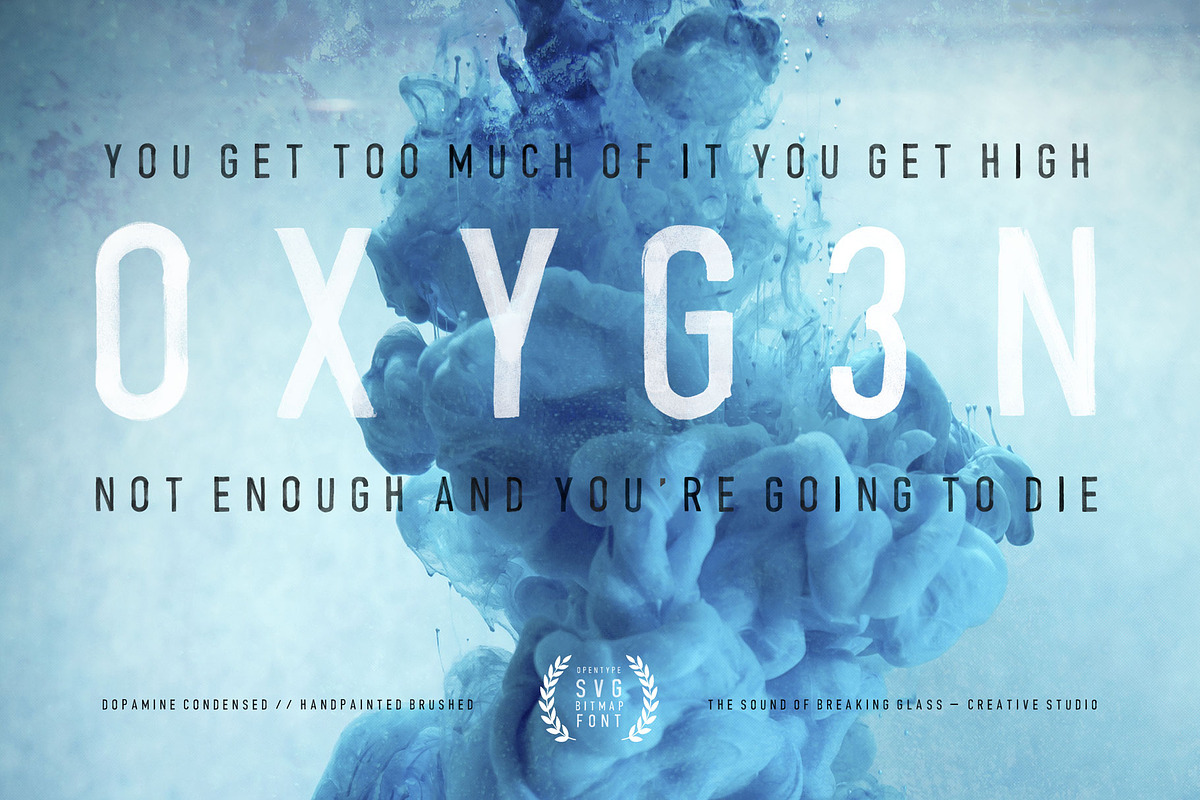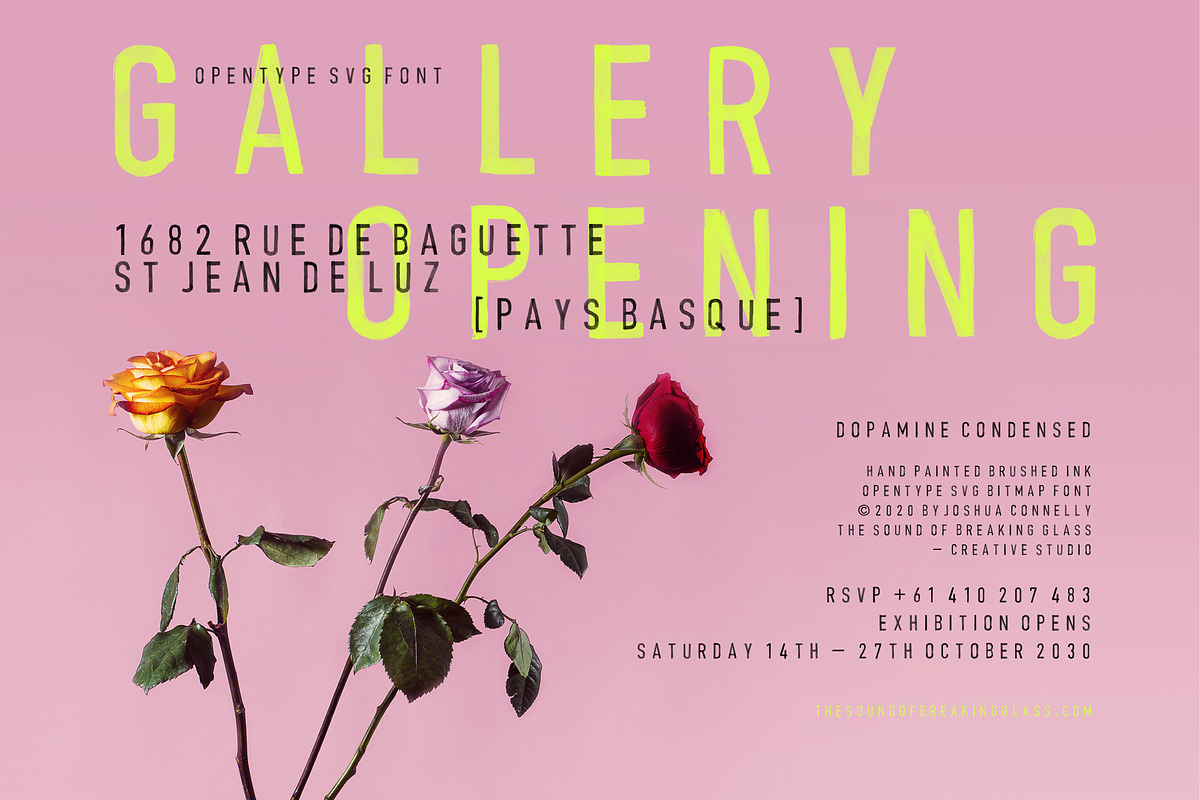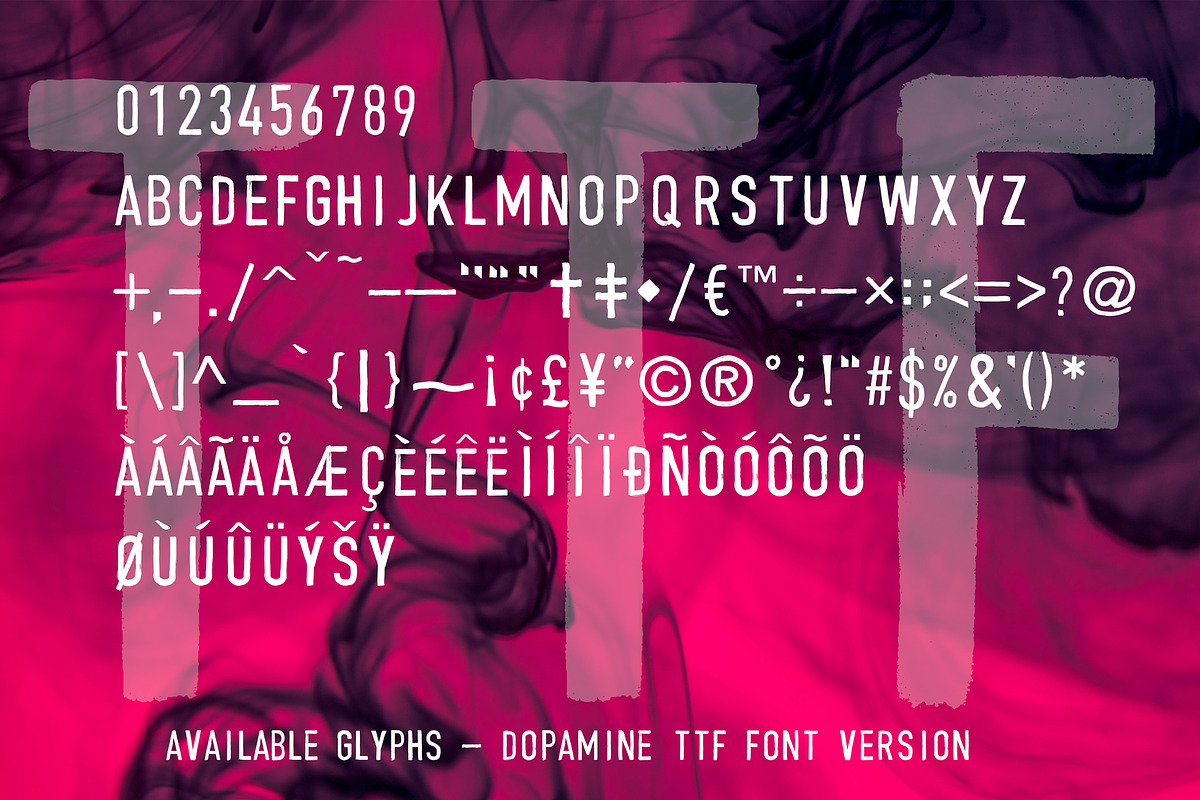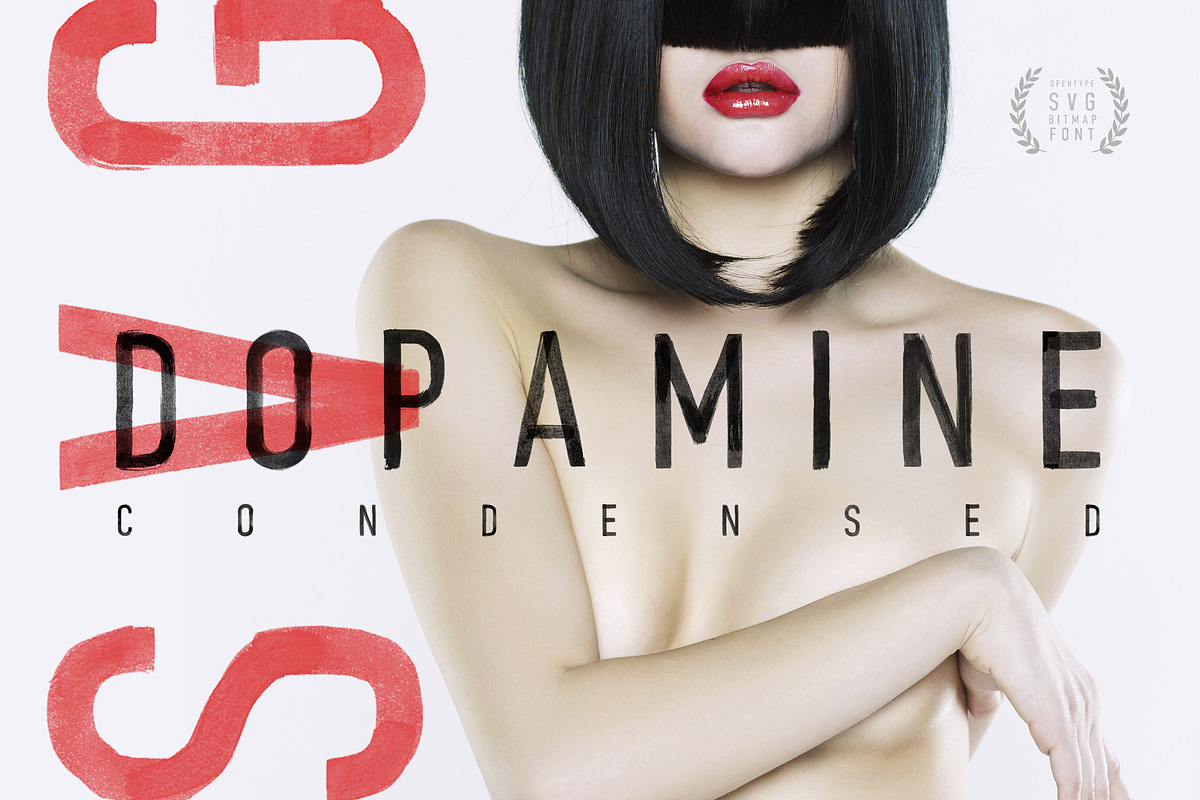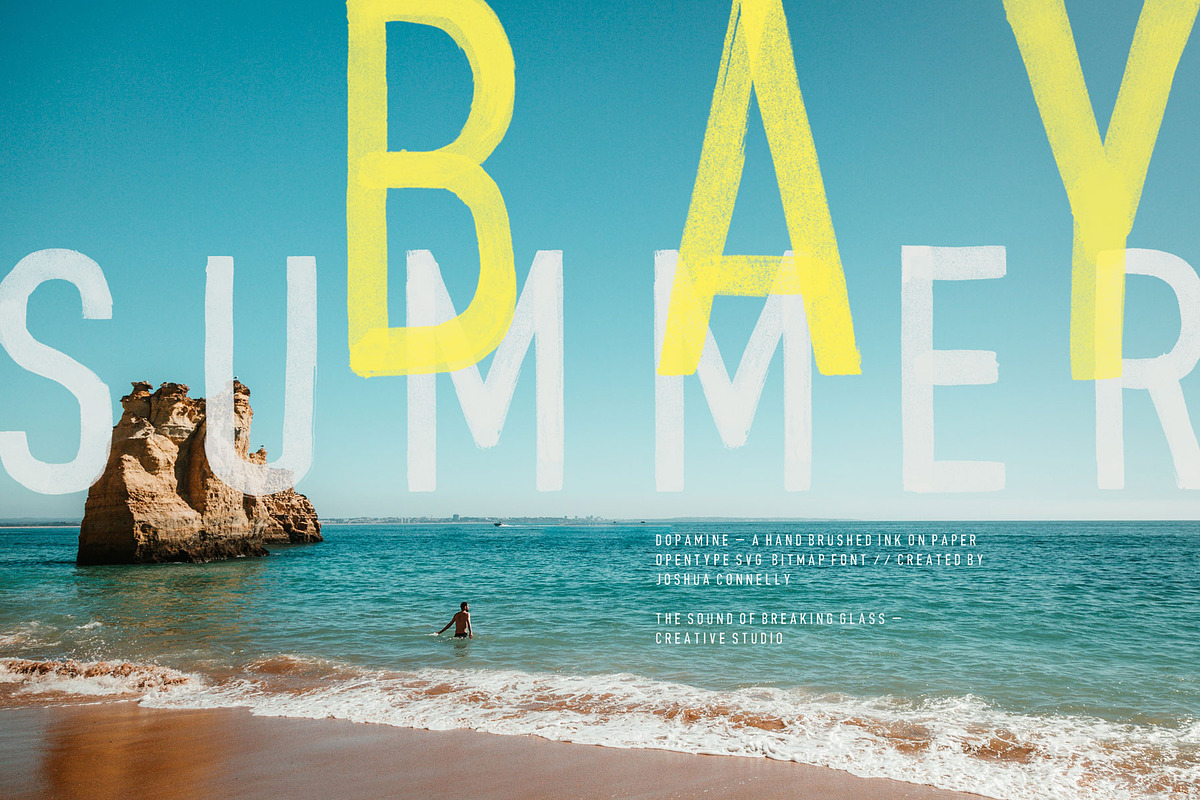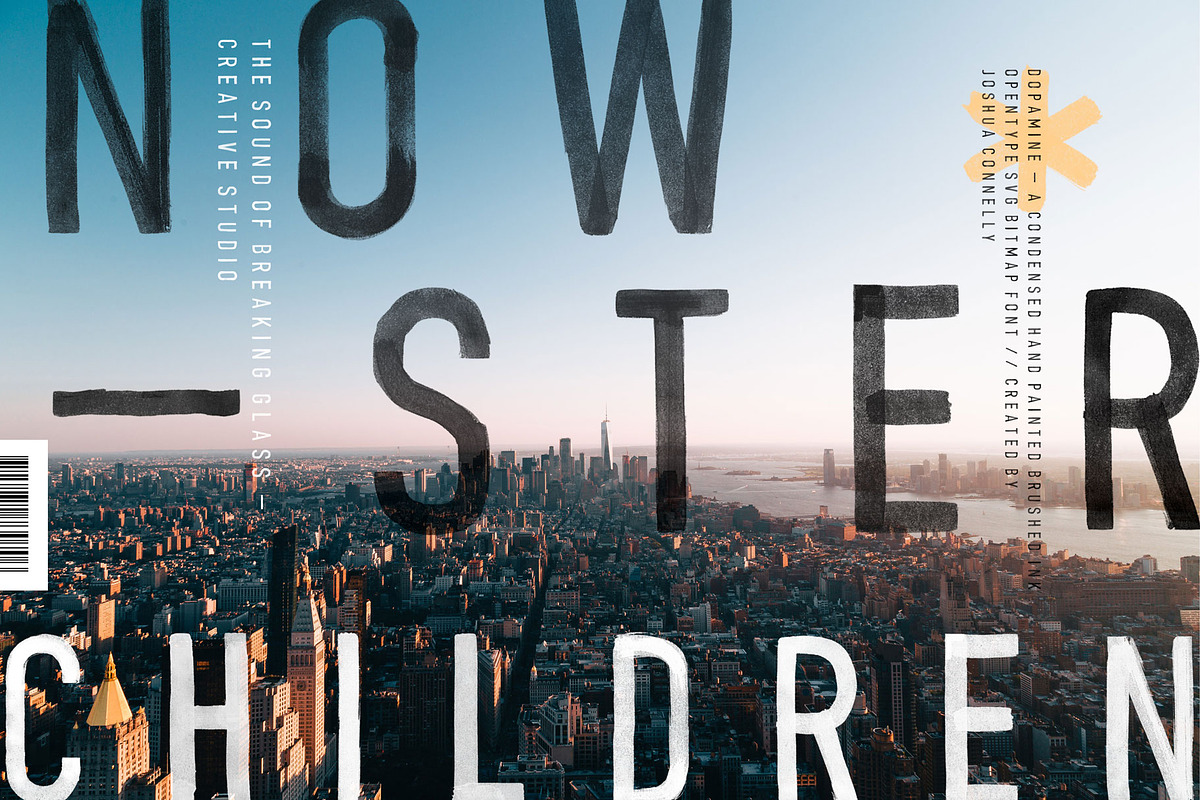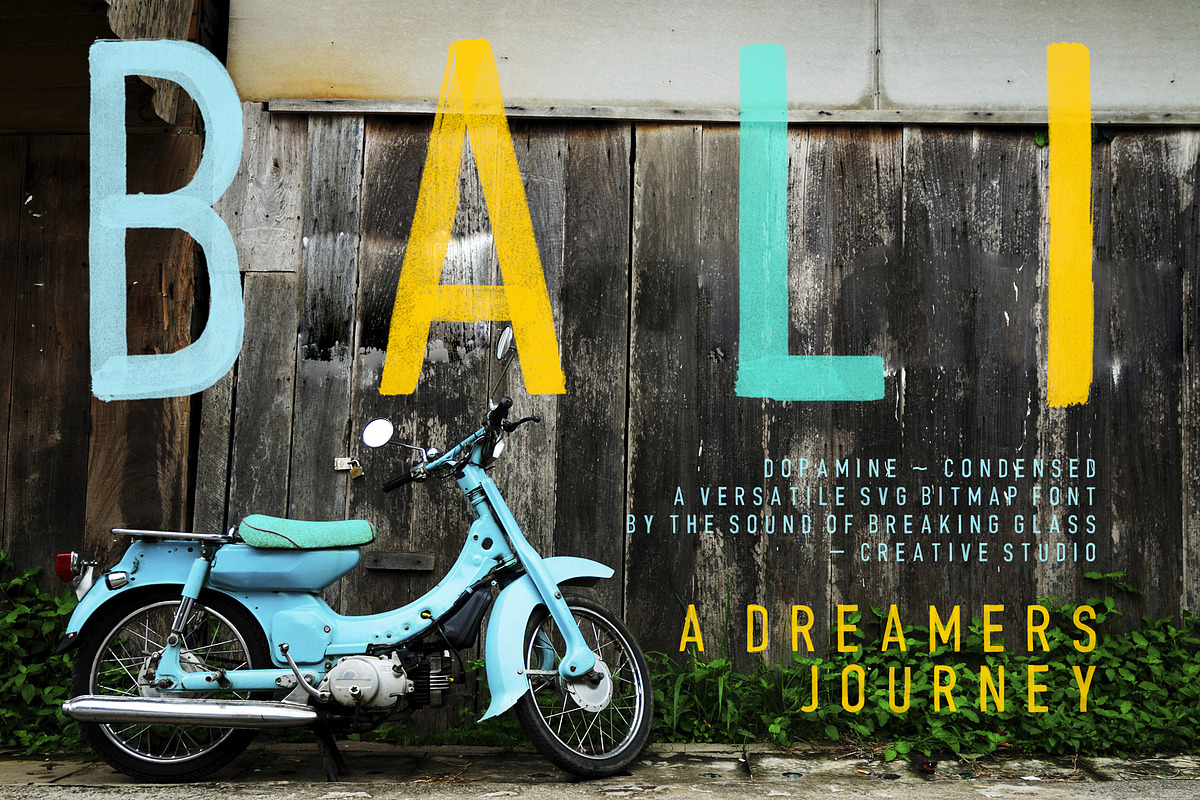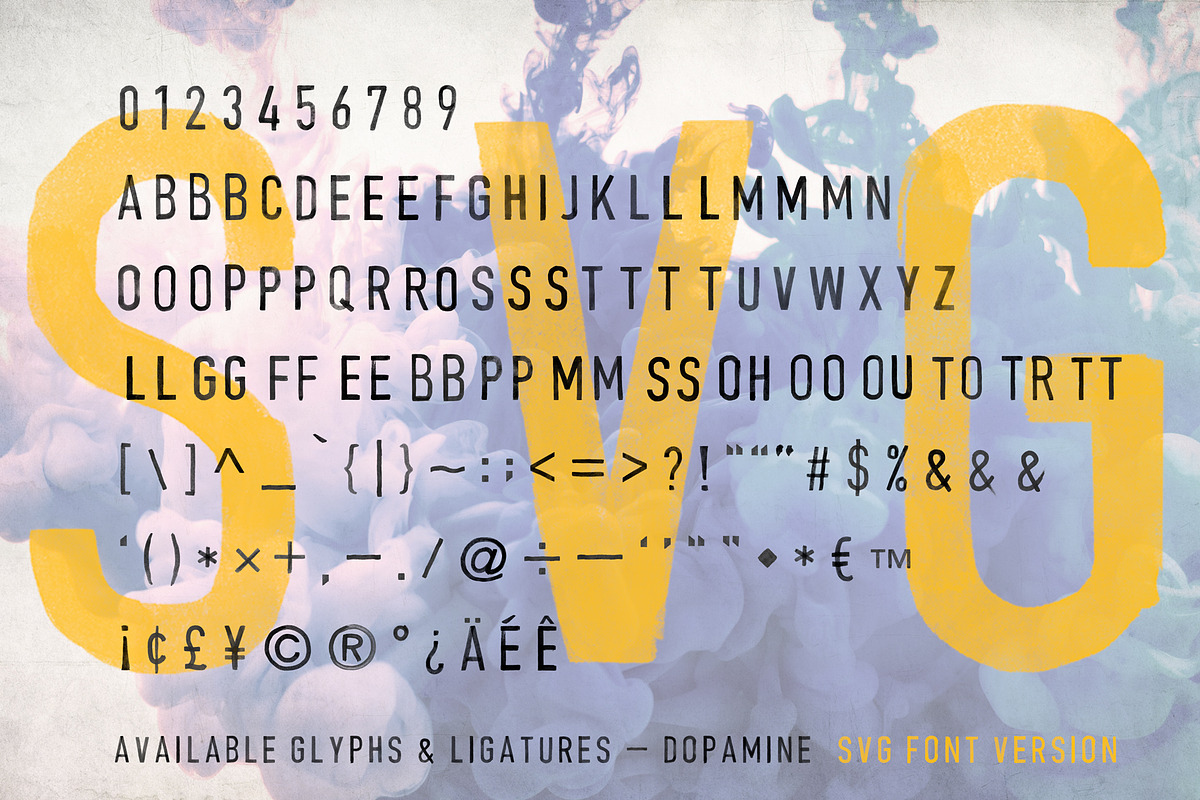
Dopamine SVG | Hand Brushed Font
DOPAMINE by The Sound Of Breaking Glass - Creative Studio, is a charismatic hand brushed - ink on paper SVG bitmap font that is adaptable to suit a wide range of design styles and creative applications.
Dopamine-SVG-Bitmap.otf was created using the latest Opentype-SVG font technology - Which maintains the brushed strokes, blemishes and ink transparency as seen in the original hand drawn artwork.
Dopamine-SVG-Bitmap.otf– An openType SVG Bitmap version of the font with unique and varied textural blemishes and visible brush strokes in every character & glyph.
Dopamine-TTF-Vector.ttf– Standard TTF vector version of the font where all glyphs are a solid texture fill. While this version is infinitely scalable it still maintains the original hand brushed ink on paper look and can be colorised any color using a standard text color fill.
NOTE ABOUT LIGATURES:
ONLY the Dopamine-SVG-Bitmap.otf version contains various paired 'Discretionary Ligatures' built in to the font. These letter pairs maintain an authentic, natural hand drawn look by substituting pairs of letters such as BB, EE, LL etc.. with unique individual characters - different from the standard character to avoid visual repetition. Ligatures are supported by most desktop publishing applications, including Photoshop, Illustrator, InDesign...etc. Ligatures are discretionary and can be accessed and inserted manually by using the Glyphs panel in your supported software.
Dopamine SVG & TTF font: Ideal for use on a wide range of communication and design projects including magazine layout & print designs, social media posts, advertisements, posters, product packaging and much more!